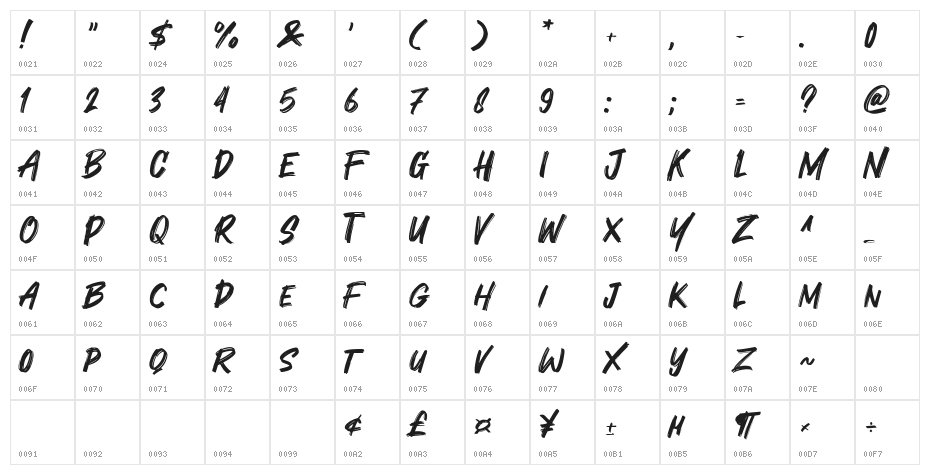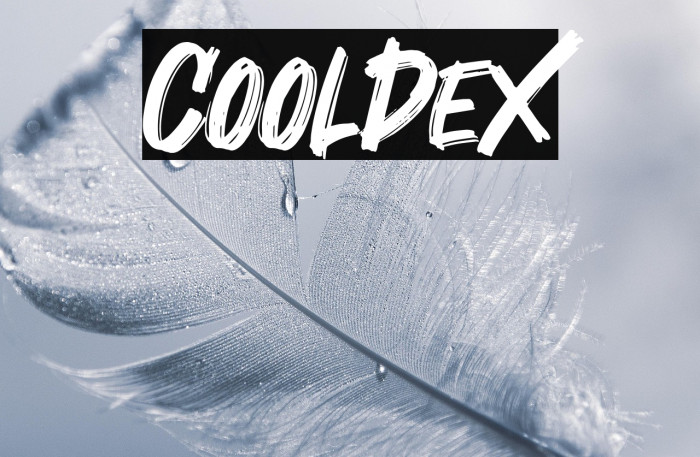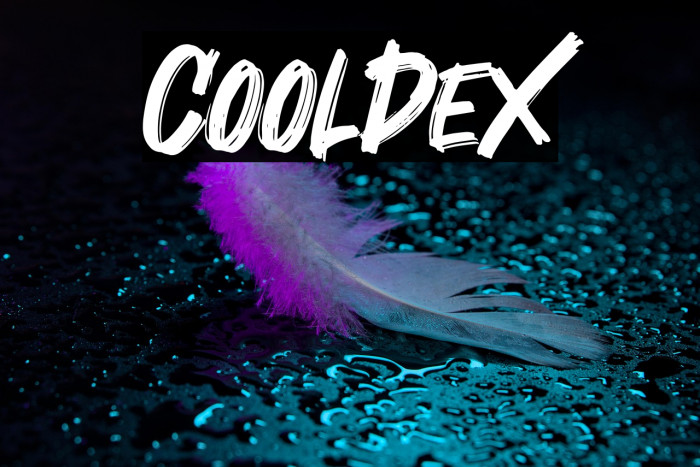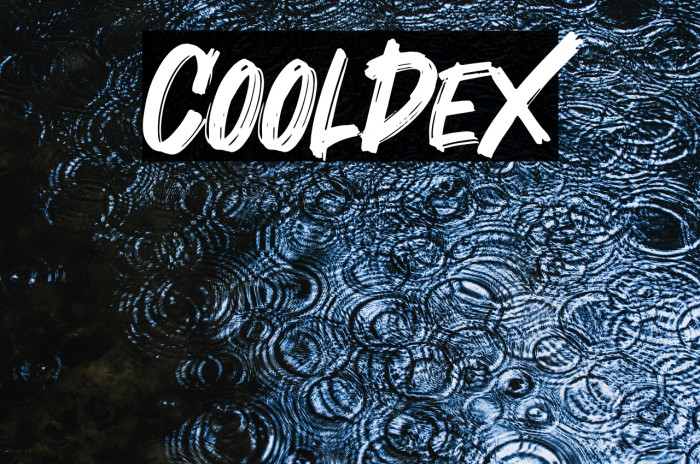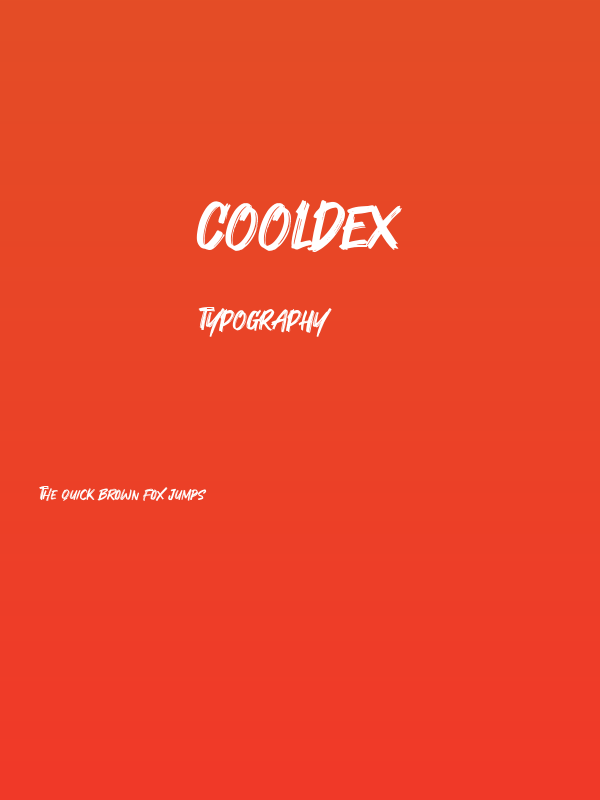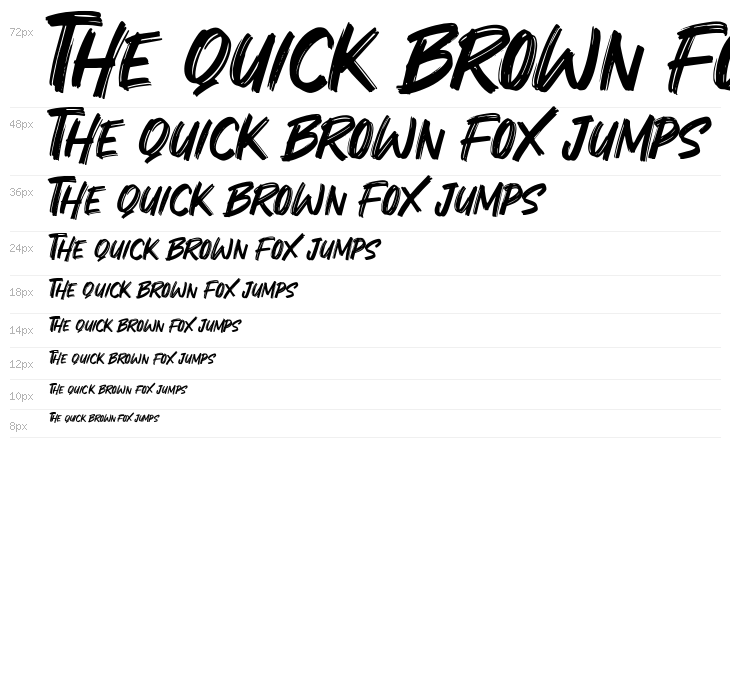
Cooldex Font
Cooldex Description
This font exudes a bold and energetic vibe with its brush-like strokes and dynamic appearance. The letters are crafted with a sense of motion, giving them a lively and expressive quality. The uppercase and lowercase characters maintain a consistent style, with thick, uneven lines that suggest a hand-painted or graffiti-inspired design. The numbers and special characters follow the same aesthetic, ensuring a cohesive look across all text elements. This font's unique style makes it stand out, perfect for projects that require a touch of creativity and flair.
| Overall Style | Modern, Artistic |
| Proposed Projects | Ideal for posters, album covers, streetwear branding, and creative advertising campaigns. |